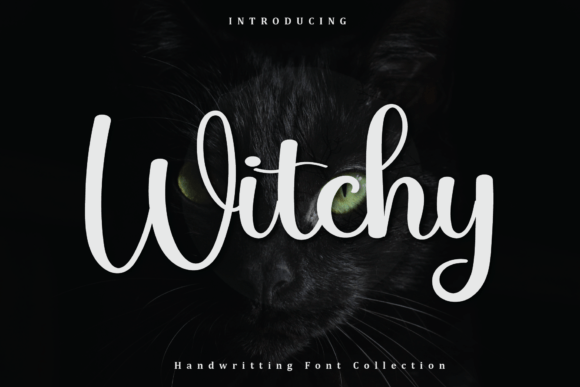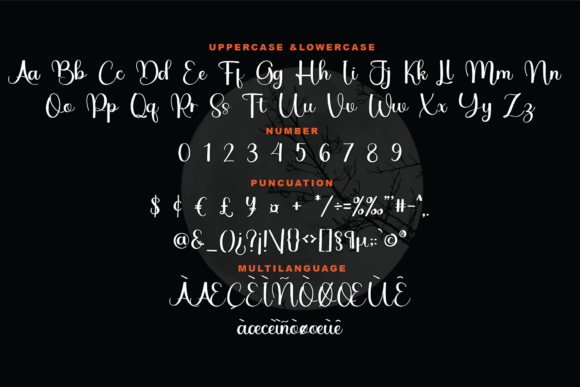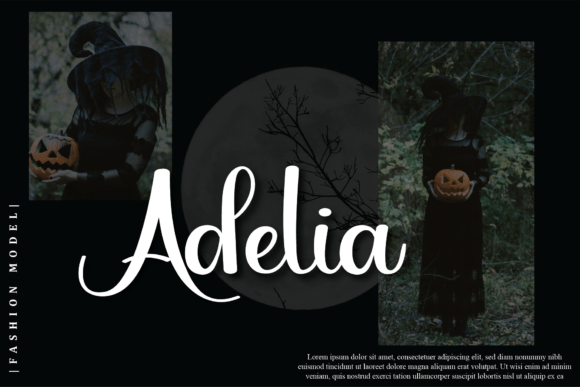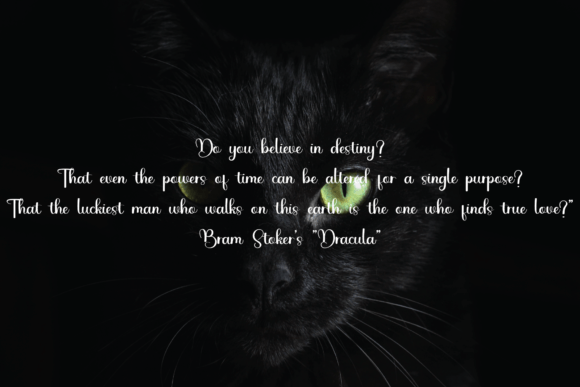
Witchy Font
About Witchy Font
Witchy is a captivating script font that exudes a sense of magic and charm. Meticulously crafted and highly detailed, this font stands out as a dazzling addition to your font library. Regardless of the topic or theme, Witchy proves to be a wonderful asset with the potential to elevate and enhance any creative creation.
The meticulous craftsmanship of Witchy is immediately evident in its intricate details. Each stroke is carefully designed, contributing to the font’s overall visual appeal. This attention to detail ensures that Witchy maintains a level of sophistication, making it suitable for a wide range of design applications.
As a script font, Witchy carries a certain elegance that can add a touch of magic to your projects. Its flowing and dynamic nature makes it particularly well-suited for creative endeavors where a sense of fluidity and style is desired. Whether used in titles, headings, or other design elements, Witchy brings a captivating quality to the text.
Witchy’s versatility is a key attribute. Regardless of the topic or theme of your project, this font has the ability to seamlessly integrate and enhance the overall aesthetic. Whether you’re working on branding materials, invitations, or any other creative piece, Witchy becomes a reliable and visually striking choice.
In summary, Witchy is not just a font; it’s a dazzling script that brings a touch of enchantment to your designs. With its meticulous craftsmanship and versatile nature, Witchy has the potential to transform your creative endeavors into visually stunning and captivating works of art.